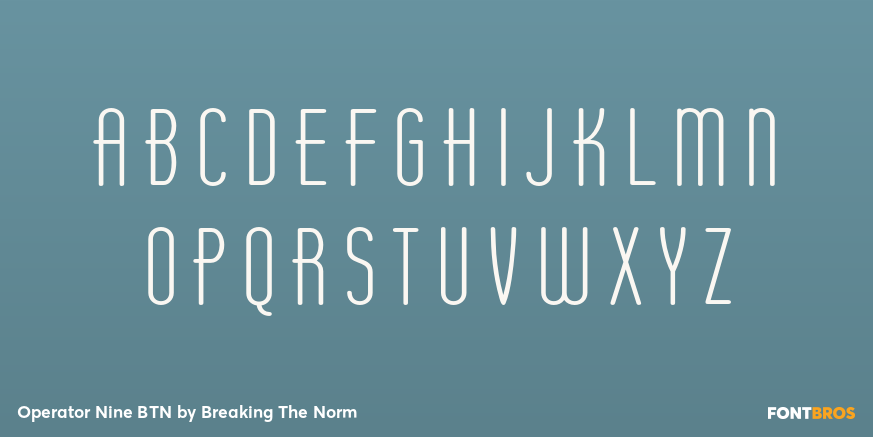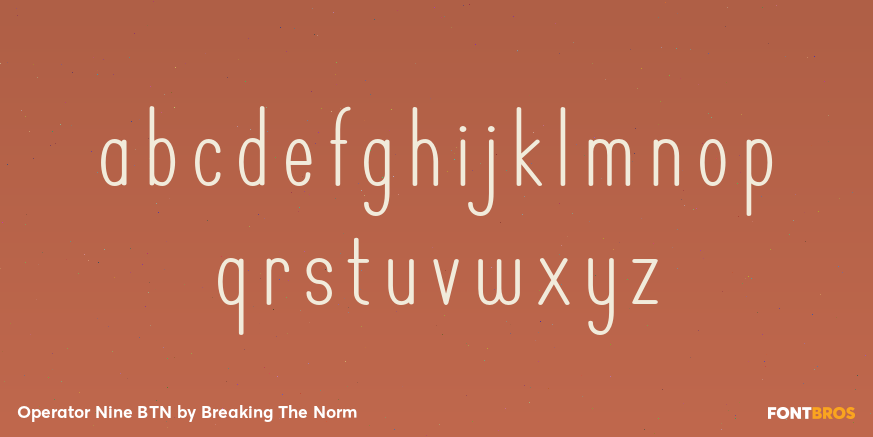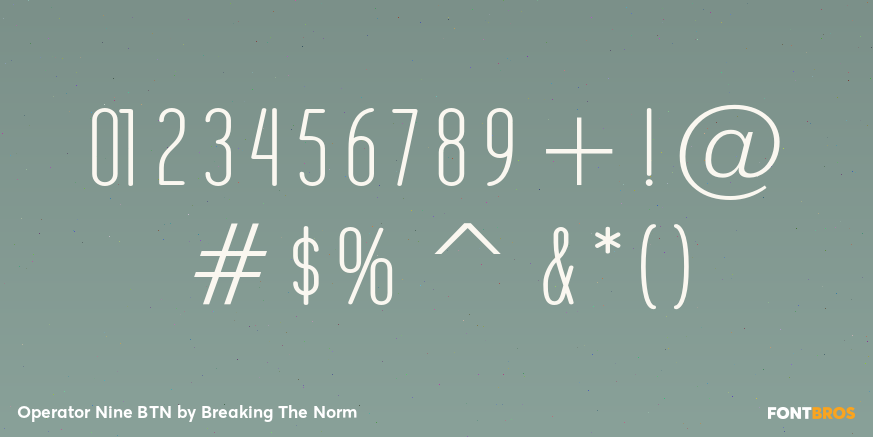
Operator Nine BTN
Font Family by Breaking The Norm
Operator Nine BTN is a clean Deco-inspired type family that bridges text utility and display flair. Its streamlined structure gives it strong readability for smaller settings, while its decorative companions bring plenty of personality for logos, headlines, signage, and polished branding. The family balances vintage sophistication with practical versatility, making it well suited for editorial layouts, packaging, advertising, identity work, and period-inspired design. With a broad range of weights, obliques, and stylized Inline, Lined, and Shadow variants, Operator Nine BTN offers an especially flexible system for creating typography that can shift from refined supporting text to striking headline treatments.